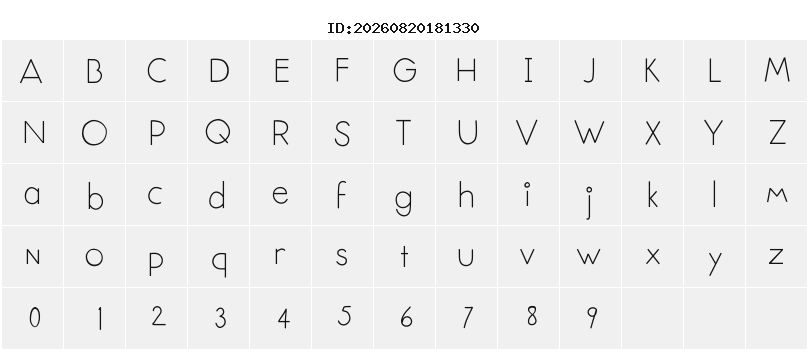
About Senseless.ttf
Senseless.ttf is a modern, elegant sans-serif font designed for ultimate readability and visual harmony. Perfect for branding, headlines, web design, and print materials.